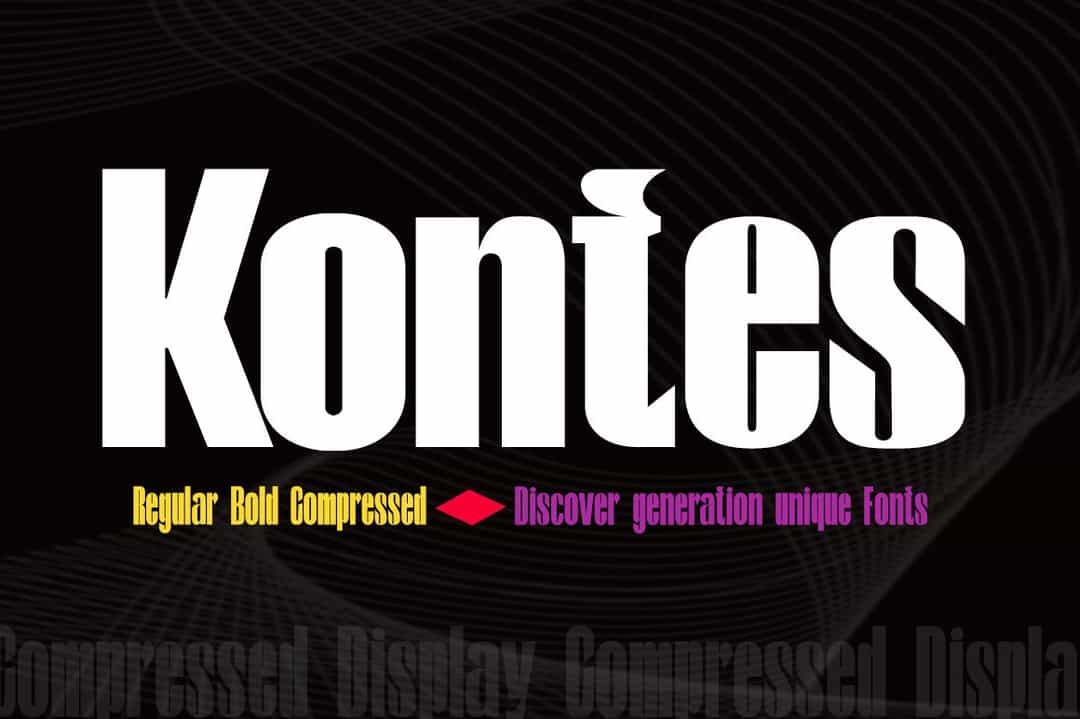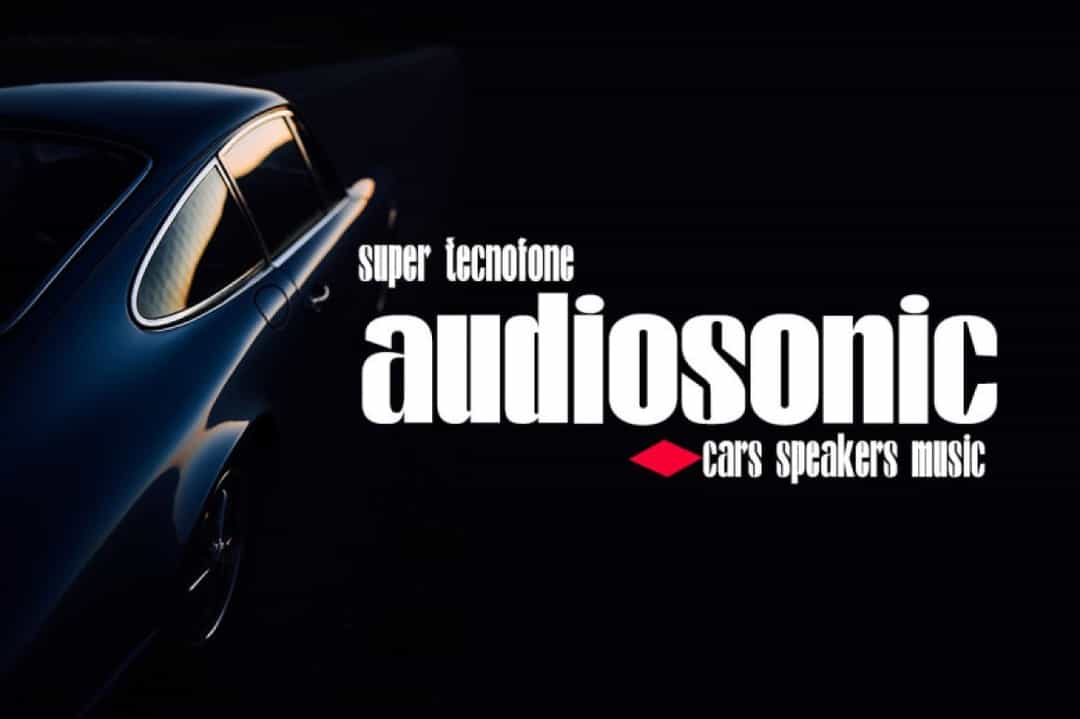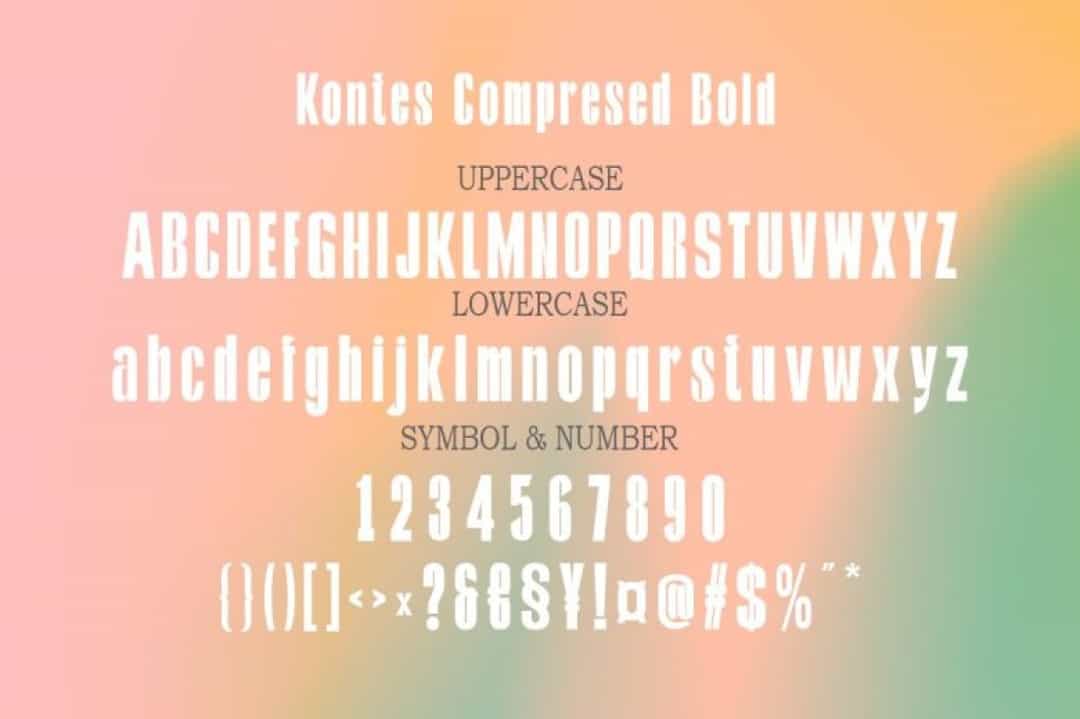
Discover Kontes Font, part of the Sans Serif Display Basic collection—a versatile and unique font perfect for adding a personal touch to your projects. Download it for free and enjoy crafting designs with style, from invitations to social media posts. This font is available exclusively for personal use, giving you the freedom to create without limits. Unlock your creativity with Kontes Font today!
Compressed Kontes Font is presented as a distinctive, feminine, sensual, elegant and simple font suitable for many formal applications such as invitations menus labels designs fashion makeup stationery romantic novels letterpress magazines books packaging greeting/wedding cards labels etc.